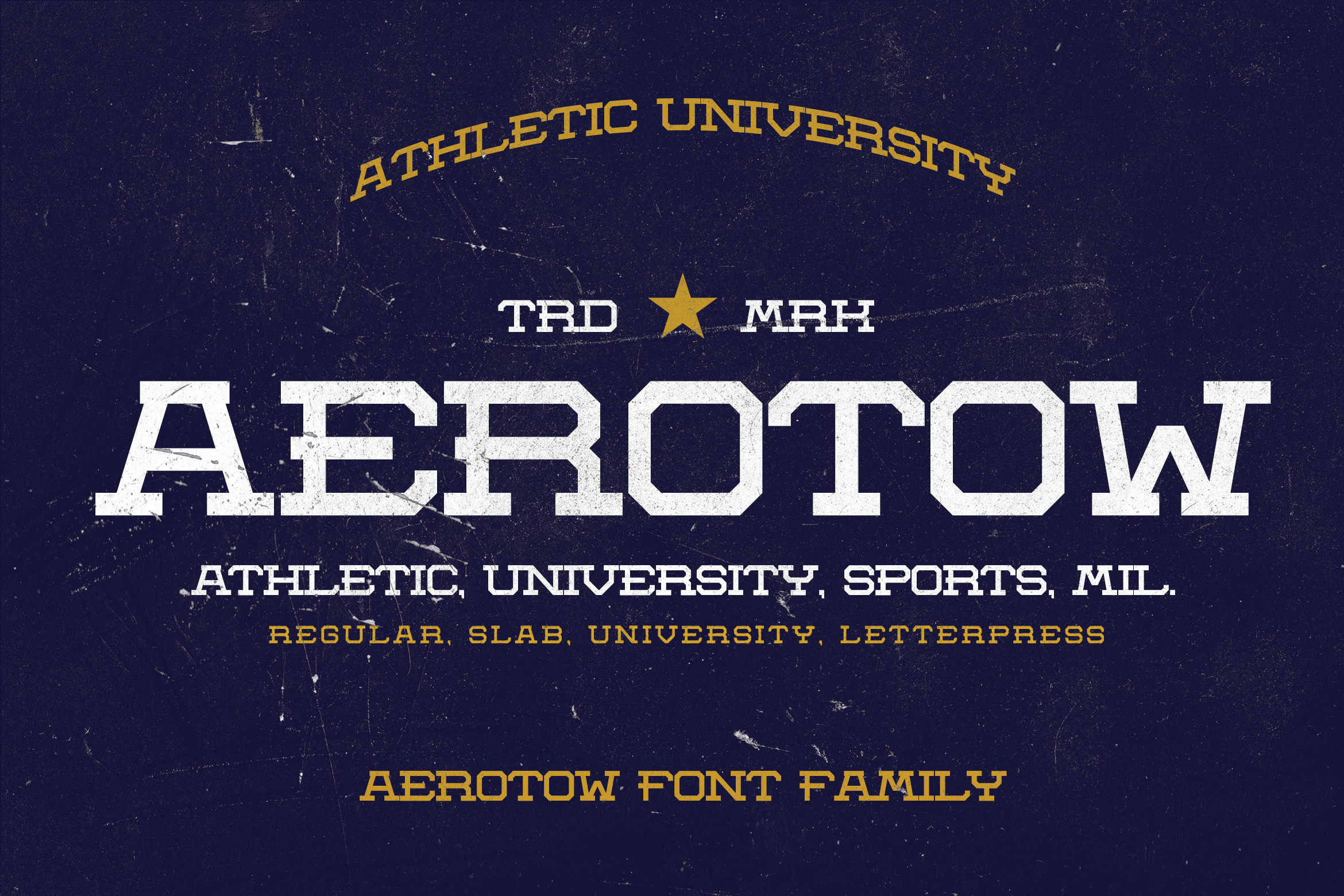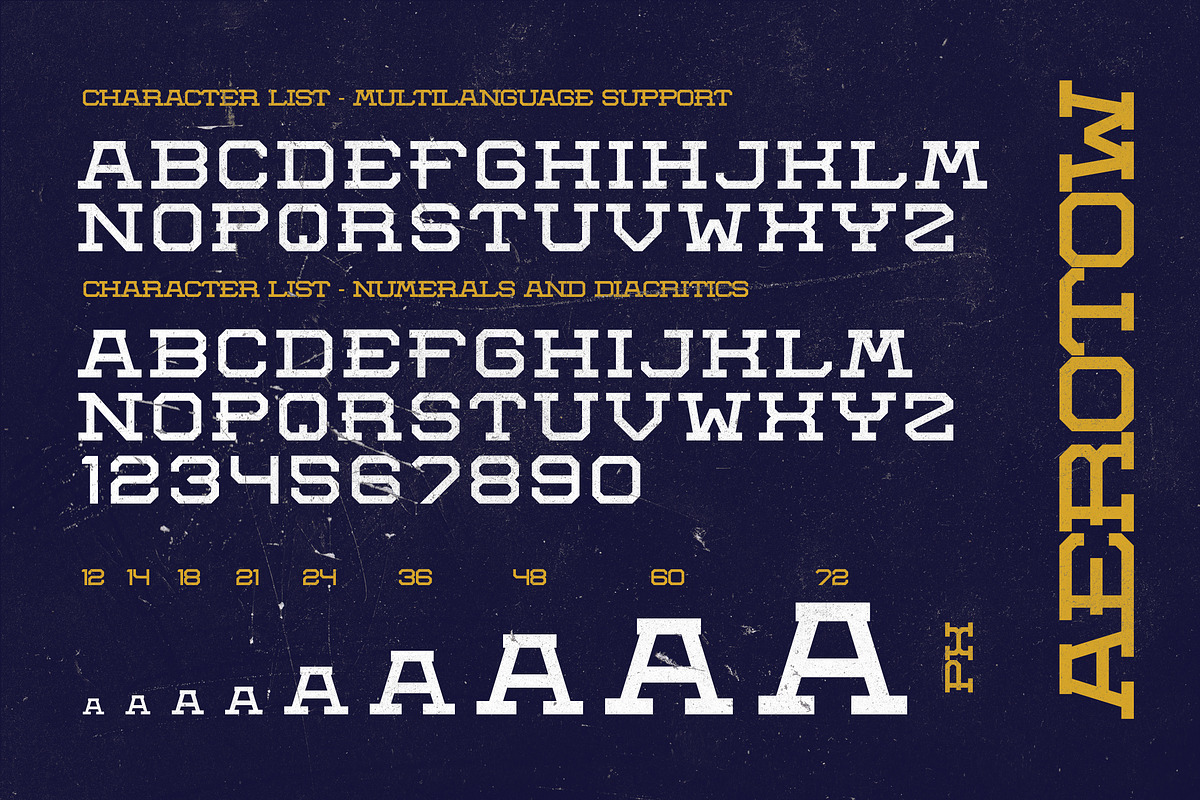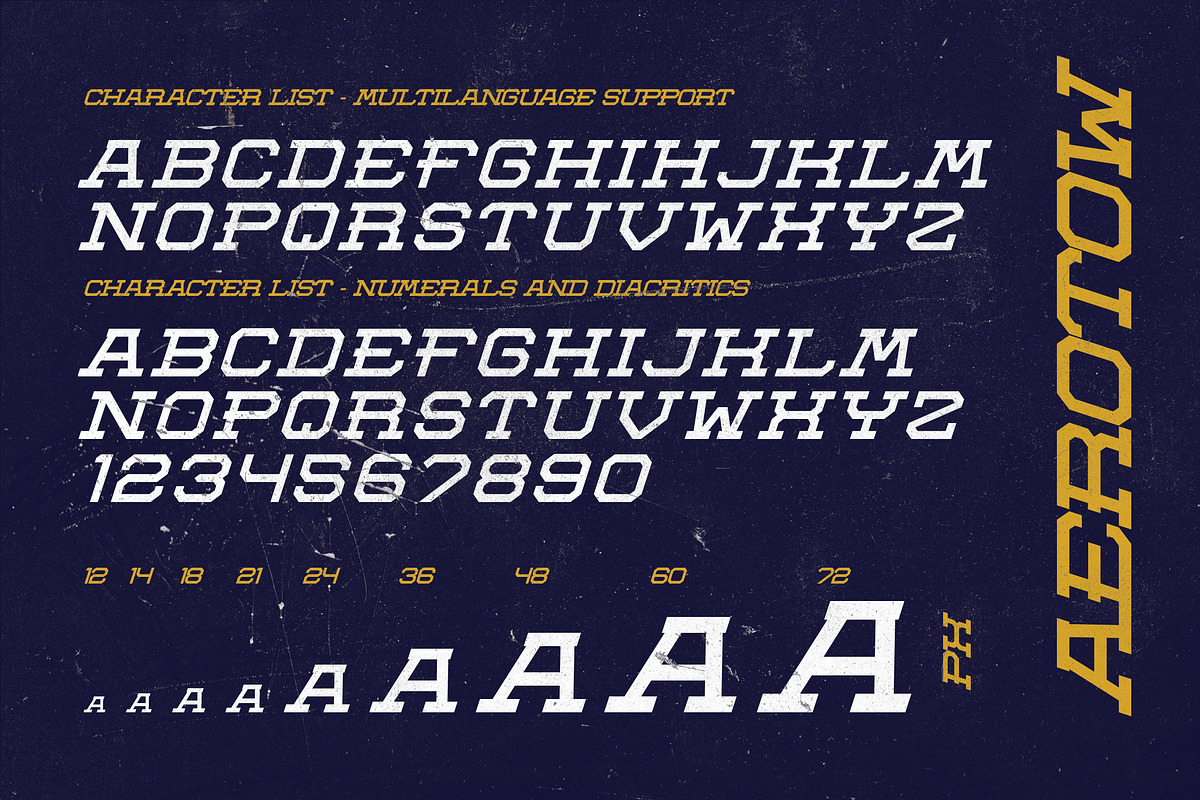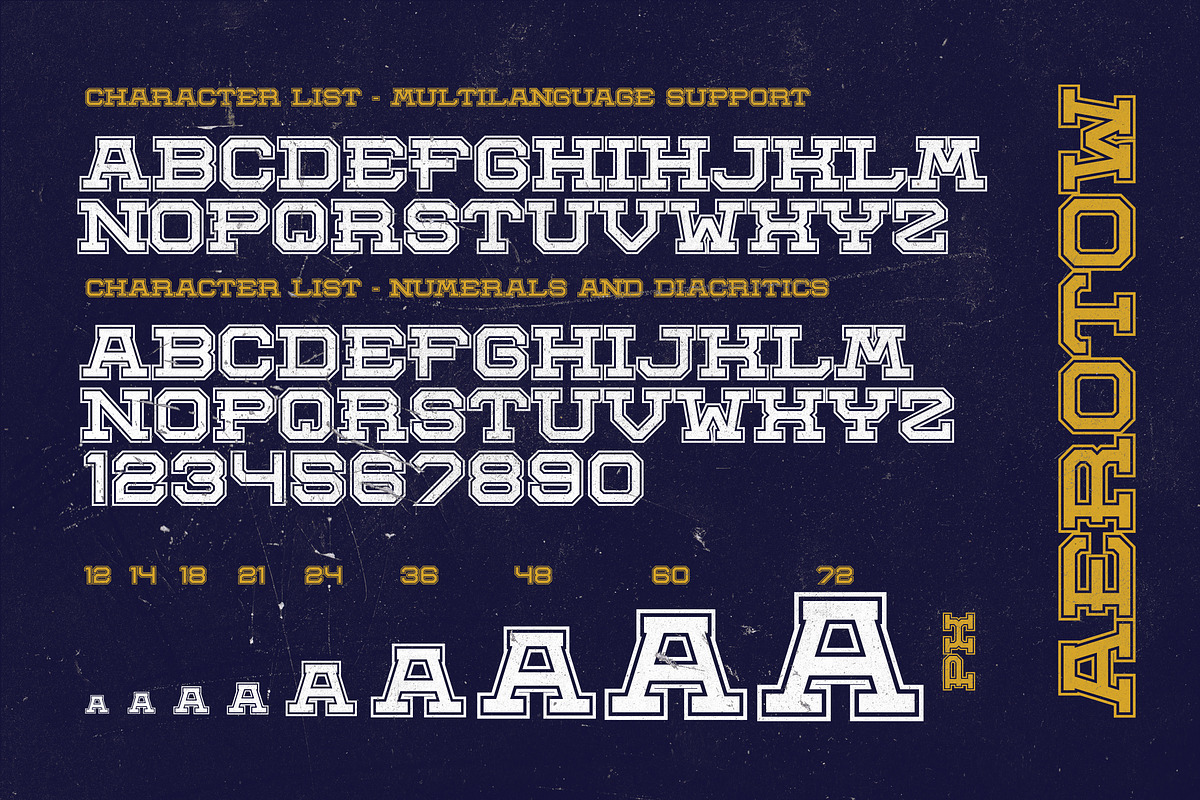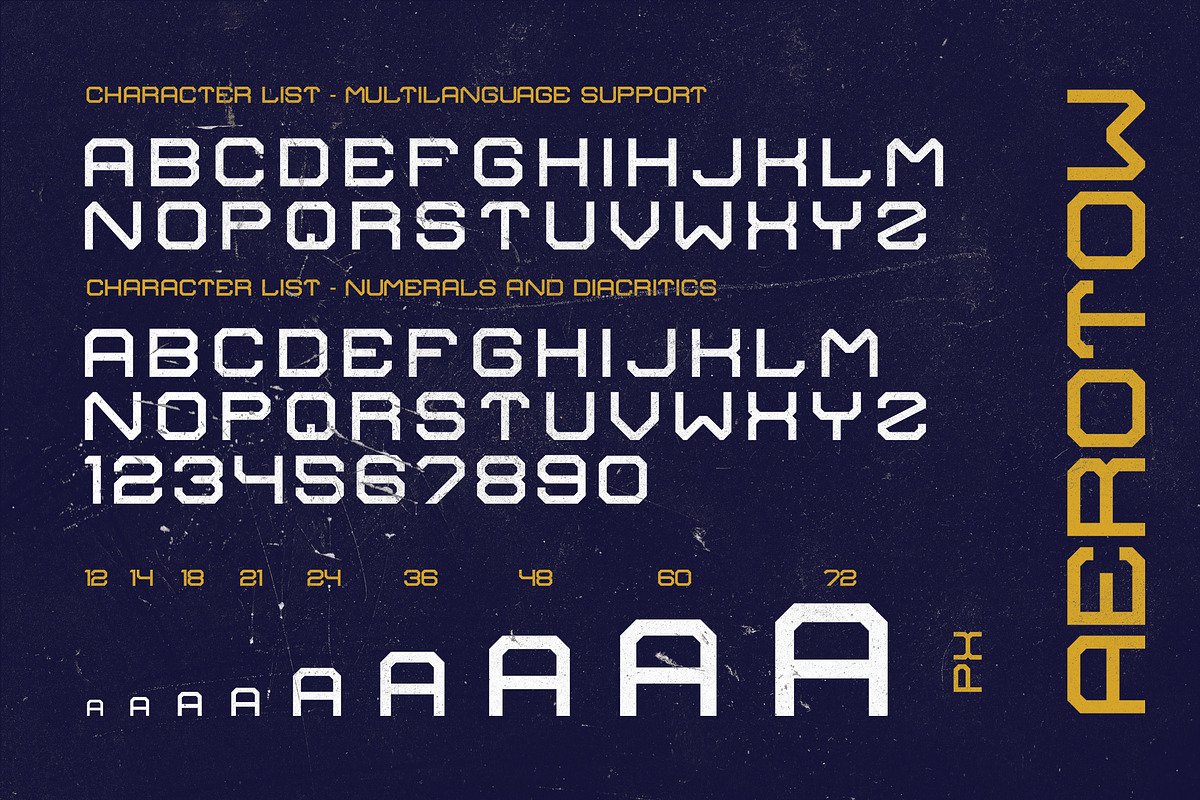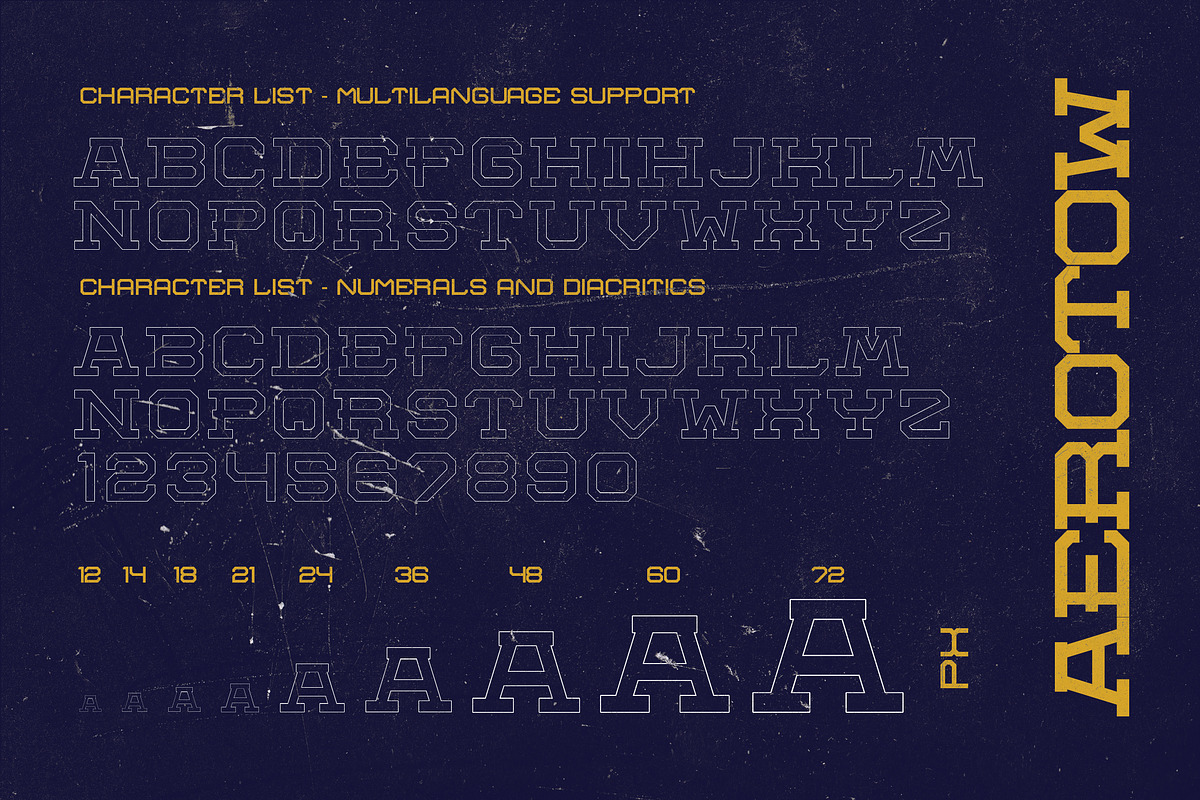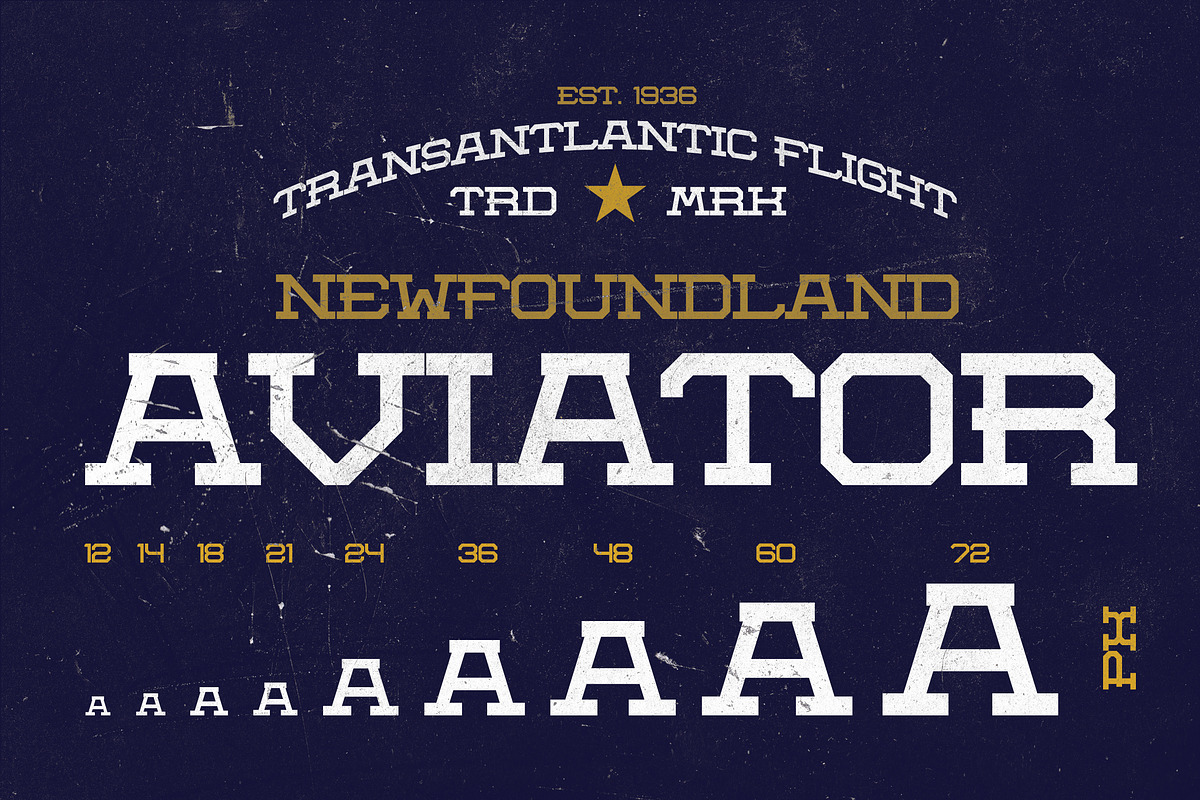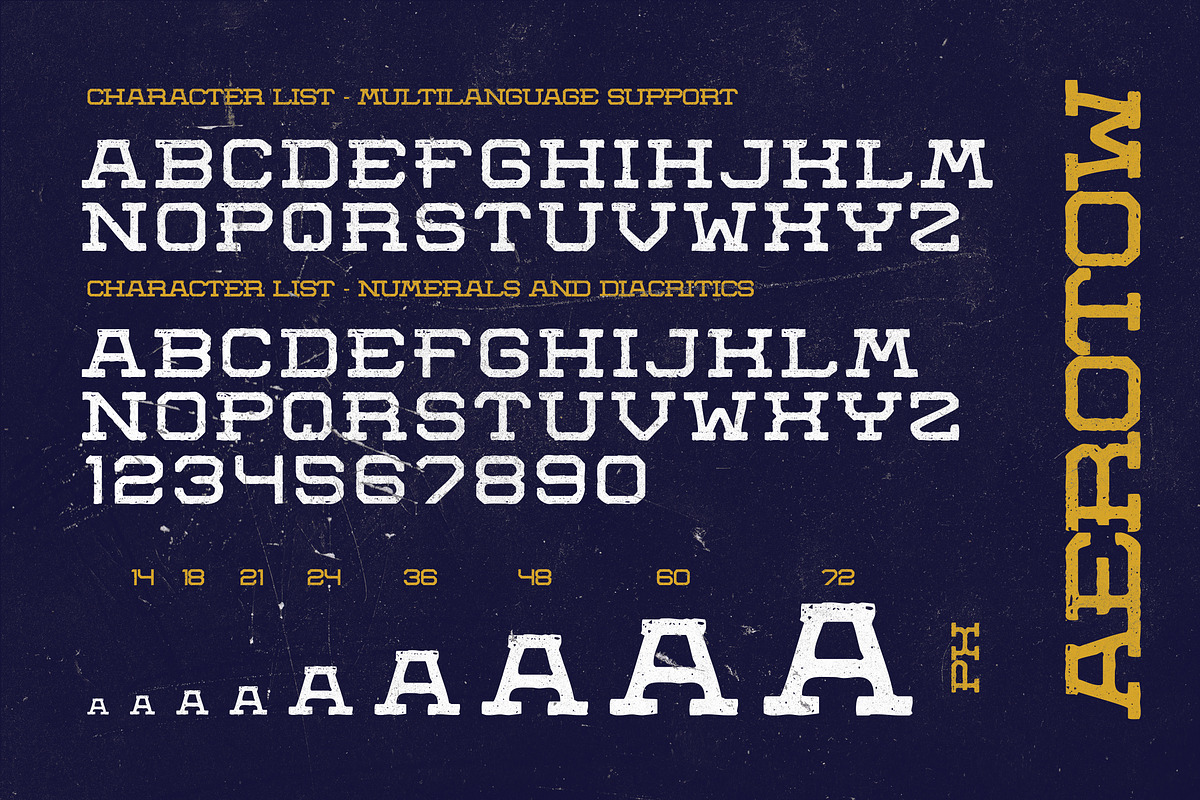
Aerotow Font
Aerotow Font is a handcrafted vintage, letterpress and slab serif font. Inspired by university sports, retro posters, and magazines, postcards, and ads from the 70's to the '90s.
The font comes in 8 styles. From Regular to Italic, Letterpress variation, and many others.
The font stays in memory once you see it and it is ideal for display text, print, and also for user interfaces, mobile devices, web design, and posters, with a set of optimal characters for your design in any layout.
It looks especially great on a large scale, although it still carries it at smaller point size.
Stylistic alternatives Ligatures International characters (Multilingual) Punctuation & symbols OpenType Features Uppercase Multilanguage Support: English, Albanian, Danish, Dutch, Estonian, Croatian, Bosnian, Slovenian, Finnish, French, German, Icelandic, Italian, Norwegian, Portugese, Spanish, Swedish with a lot of other languages; see Full Character List.